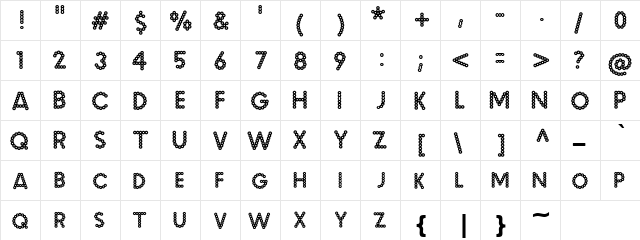
Malache Crunch Regular
Design Context for Malache Crunch Typeface
Malache Crunch is a composed and adaptable typeface that performs quietly and consistently across a wide range of design contexts.